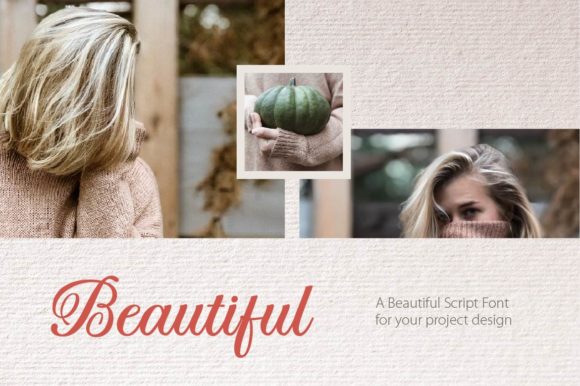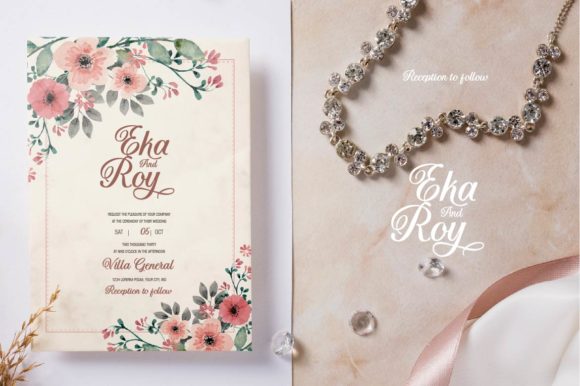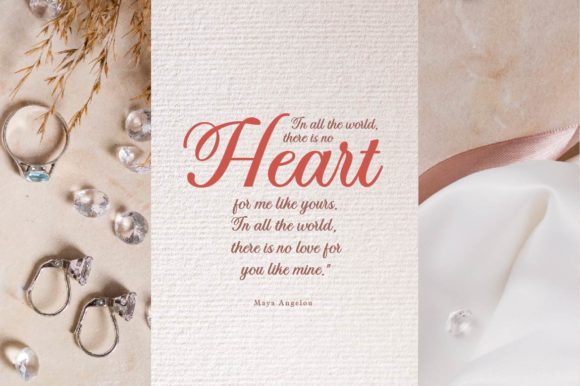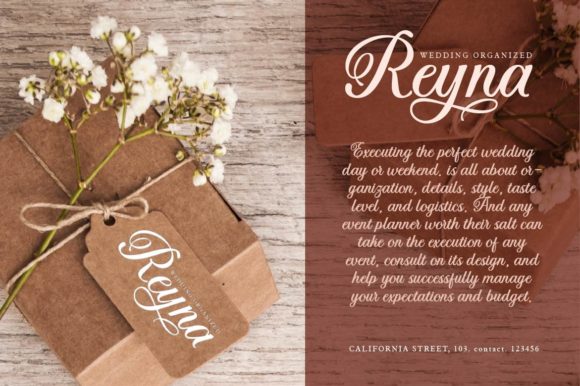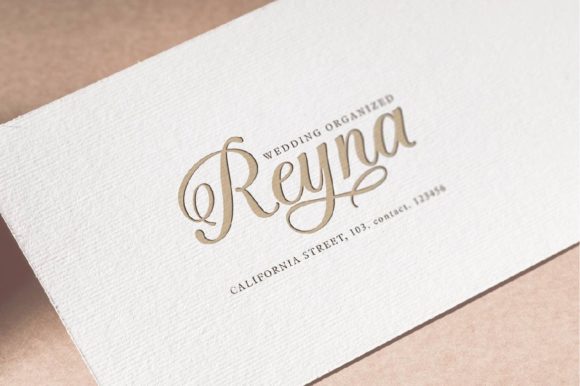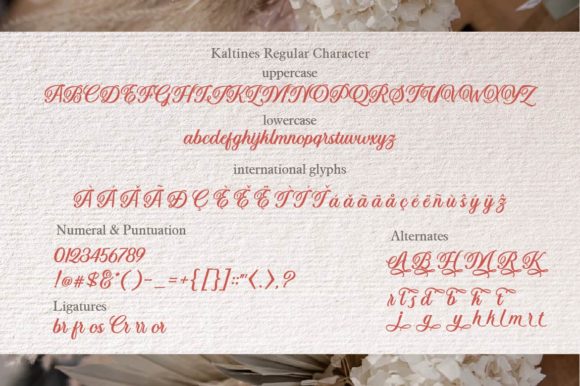
Introduction to Kaltines Font
Have you ever stumbled upon a beautiful handwritten design that left you wondering how it was created? For designers, this is often the spark that ignites a creative project. For me, it was a stunning wedding invitation that featured a gorgeous script font – Kaltines Font. Its elegant and sophisticated look immediately caught my attention, and I knew I had to learn more about this high-quality design resource.
Kaltines Font is a versatile and stylish script font that has been making waves in the design community. Whether you’re working on a wedding invitation, a thank you card, or a logo, this font is sure to add a touch of elegance and sophistication to your design. And the best part? It’s available for free download, making it a valuable resource for designers of all levels.
With its transparent background and high-quality design, Kaltines Font is a must-have for any creative project. Its unique style and versatility make it a valuable asset for designers looking to add a handwritten touch to their work. In this article, we’ll delve deeper into the world of Kaltines Font and explore its many uses and benefits.
Key Features of Kaltines Font
- High-quality design resource ideal for creative projects, offering a professional look and feel.
- Single-layer font design, providing a clean and straightforward aesthetic.
Honest Review: Kaltines Font
I recently had the opportunity to try out the Kaltines Font, and I must say it’s a great addition to any design resource. One of the things that stands out about this font is its high quality and versatility. It’s perfect for any creative project where you need a clean and modern look.
- ✨ Transparent background, making it easy to use on any design surface
- ✨ High-quality design that looks great on both digital and print materials
- ✨ Perfect for creating a modern and sleek look in your designs
- ⚠️ Limited character set, which may not be ideal for extensive writing projects
- ⚠️ Not as wide-ranging in terms of font sizes and styles as some other fonts I’ve used
Overall, I’m quite impressed with the Kaltines Font. It’s a great free download that’s perfect for designers who want a high-quality font without breaking the bank. While it may have some limitations, it’s still a valuable addition to any design resource.
Tips for Getting the Most Out of Kaltines Font
To get the most out of the Kaltines Font, experiment with different font sizes, colors, and combinations to create visually appealing designs. Don’t be afraid to try new things and push the boundaries of your creative project.
Common Use Cases for Kaltines Font
The Kaltines Font is ideal for use in logos, branding materials, and creative projects that require a unique and stylish touch. Its versatility makes it a popular choice among designers and artists.
Alternatives to Kaltines Font
Q: What file formats are available for Kaltines Font?
Kaltines Font is available in TTF (TrueType Font) and OTF (OpenType Font) formats. The TTF format is compatible with most operating systems, while the OTF format offers additional features and advanced typography capabilities.
Q: Can I use Kaltines Font with a transparent background?
Yes, Kaltines Font is designed to work seamlessly with transparent backgrounds. The font’s design allows for a clean and crisp appearance, even when used on top of an image or other design element with a transparent background.